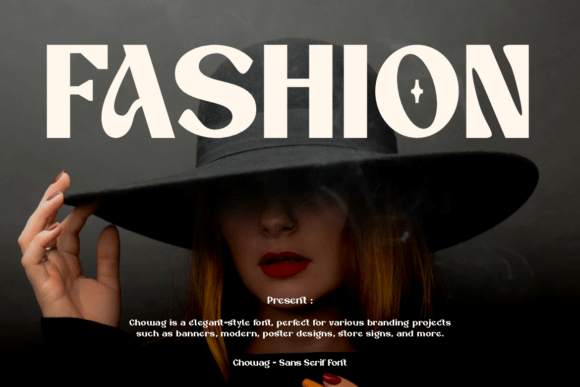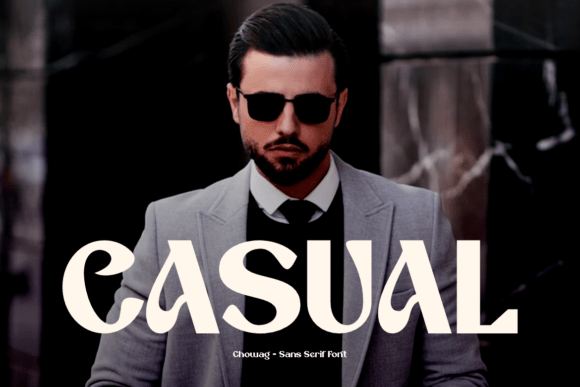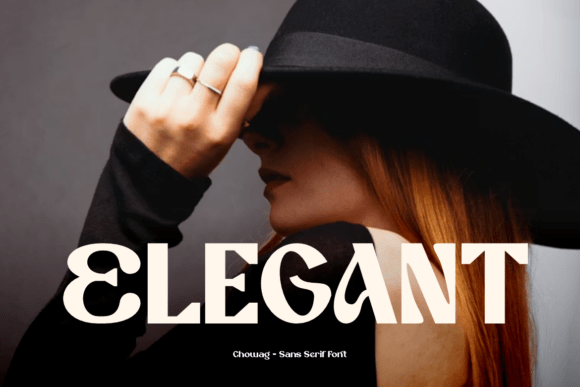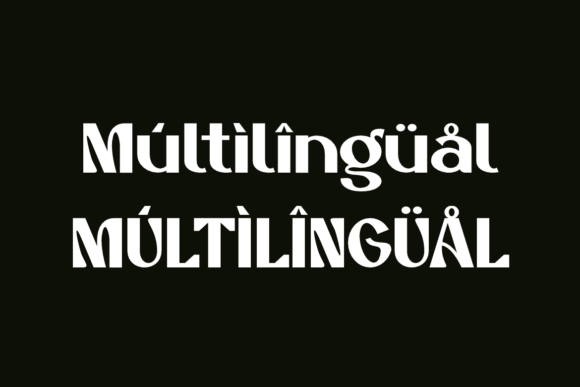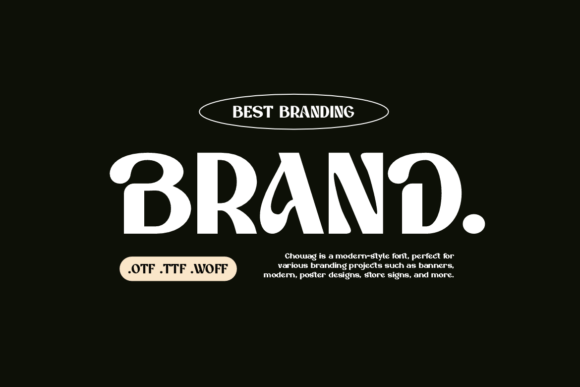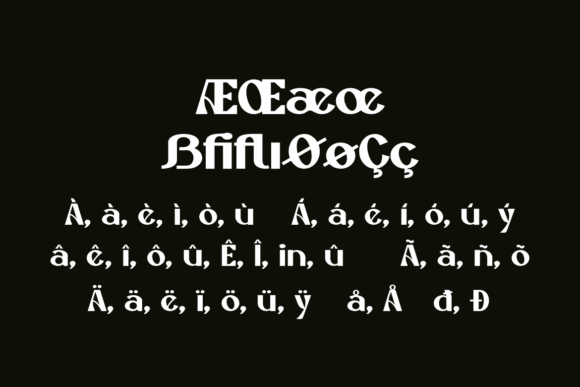
Introducing Chowag Font, a bold and authentic display typeface designed to meet the diverse needs of designers. With a wide range of themes and font styles to choose from, you’re sure to find the perfect companion for your project. Whether you’re working on a logo, brochure, or website, Chowag Font is the perfect addition to your design arsenal.
What makes Chowag Font so valuable to designers? Its versatility, of course! With support for multiple languages and a range of font styles, you can create stunning designs that resonate with your audience.
Key Features of Chowag Font
- Font Family: Chowag Font is a sans-serif typeface, suitable for various design applications.
- Size: The font family includes a range of weights from Thin (100) to Black (900), offering flexibility in design.
- Resolution: Designed to be highly legible at various resolutions, including screen resolutions and print media.
- Unique Characteristics: Chowag Font features a unique blend of modern and traditional elements, with a focus on clean lines and geometric shapes.
- Language Support: Supports a wide range of languages, including Latin, Cyrillic, and Greek scripts.
Chowag Font Review
Overall, I think Chowag Font is a visually striking font that can add a lot of character to certain designs ✨. The unique blend of modern and vintage elements makes it perfect for projects that need a touch of whimsy.
The Chowag Font is highly legible, even at small sizes, which is great for body text or captions ✨. The font also has a wide range of weights, from thin to bold, which gives designers a lot of flexibility when it comes to styling their text.
- ⚠️ Limited support for some languages: Unfortunately, Chowag Font doesn’t support a wide range of languages, which may be a limitation for designers working on international projects.
- ⚠️ Not ideal for long blocks of text: While the font is legible at small sizes, it can start to feel overwhelming when used for long blocks of text. This may make it better suited for headings or short paragraphs.
Overall, I think Chowag Font is a great addition to any designer’s toolkit. While it may have some limitations, its unique style and versatility make it a great choice for the right project ✨.
Chowag Font Practical Application Guide
Tips for Getting the Most Out of Chowag Font
Here are a few tips for getting the most out of the Chowag font:
- Use the Chowag font in bold or italic styles to add emphasis to your text.
- Pair the Chowag font with other fonts to create a visually appealing font combination.
- Experiment with different font sizes and colors to find the perfect look for your design.
The Chowag font is particularly well-suited for: